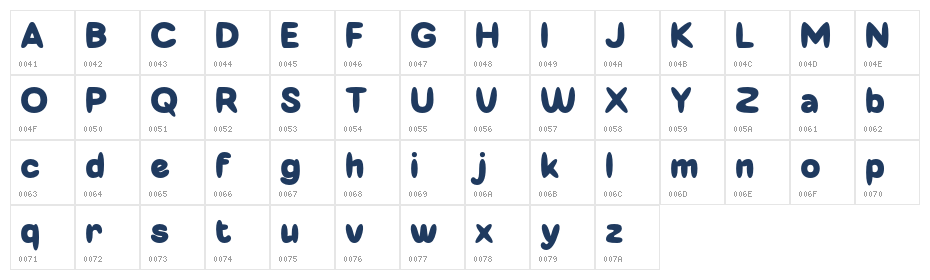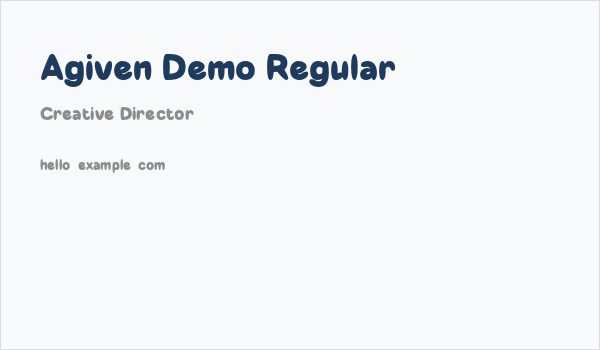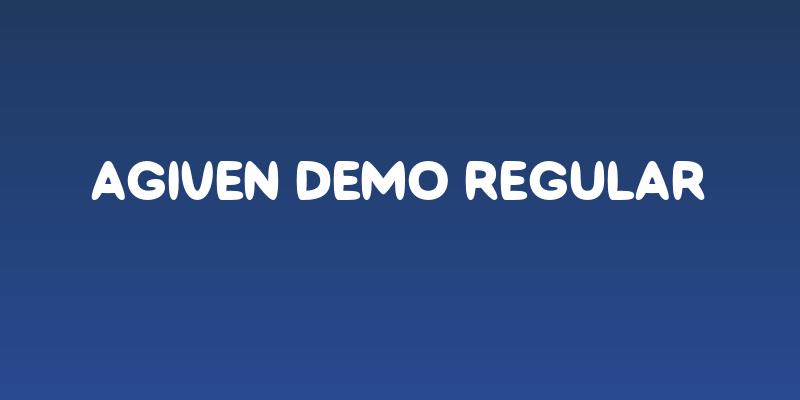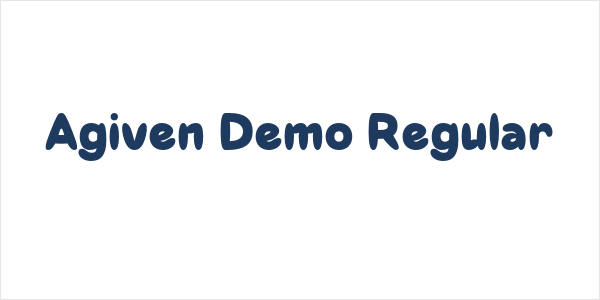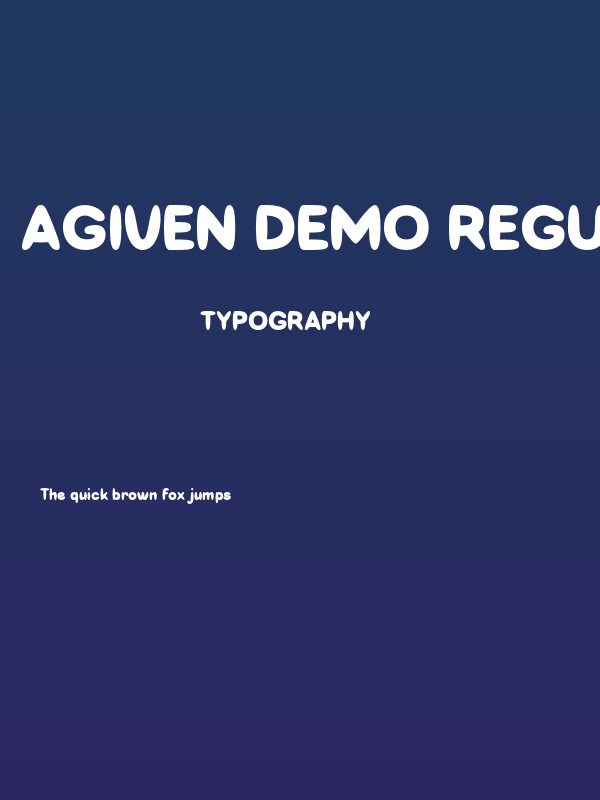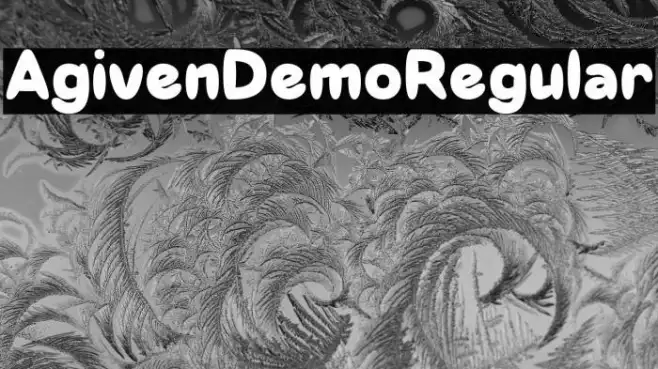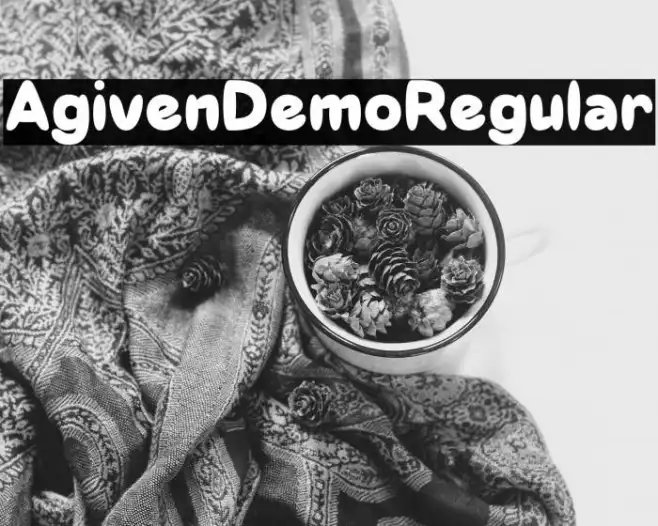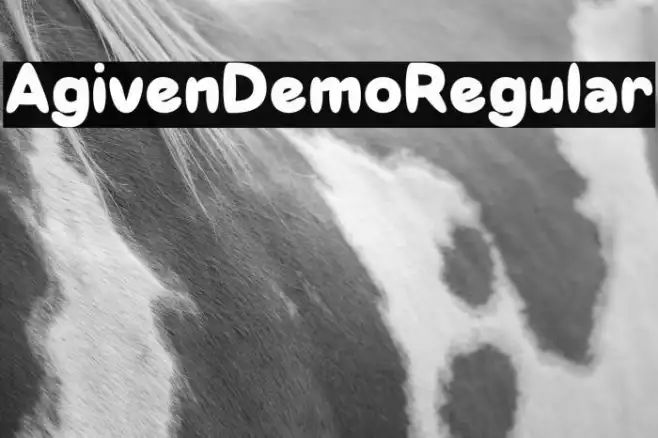
Agiven Demo Regular Font
Agiven Demo Regular Description
A playful, rounded, bold sans-serif font with a casual and friendly appearance.
| Overall Style | Playful, Casual, Friendly |
| Use Case | Headlines, Logos, Children's materials, Posters |